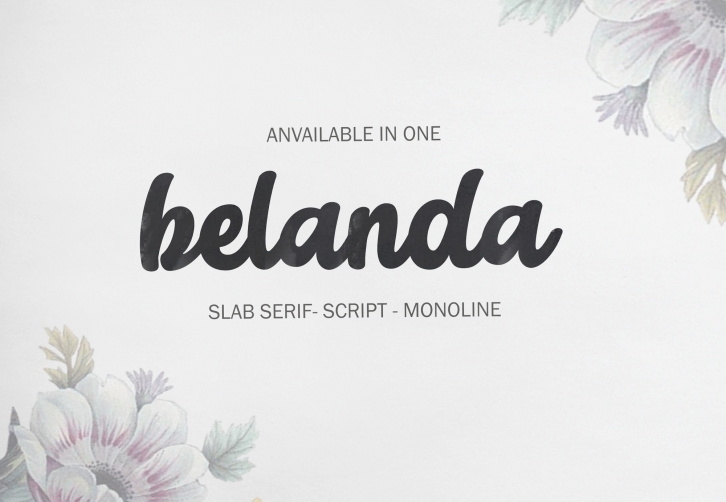
Belanda is a Slab Serif + Monoline Script & Script Font Package!
This Beautiful Collection Belanda includes high-quality script and slab serif fonts with a monoline in addition.
This font package will help you create interesting titles and logotypes. With the whole family, you can easily create an impressive identity for your project. Use it for brand imaging, packaging, posters, or other types of displays.